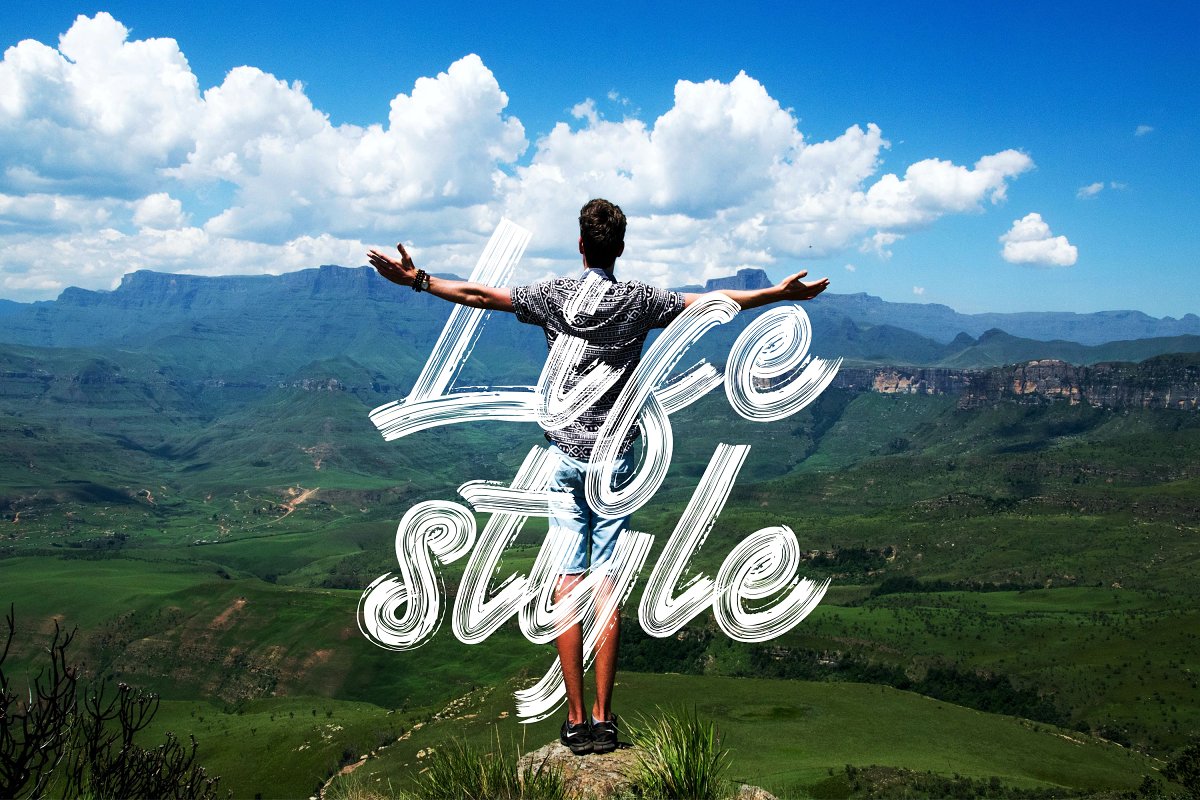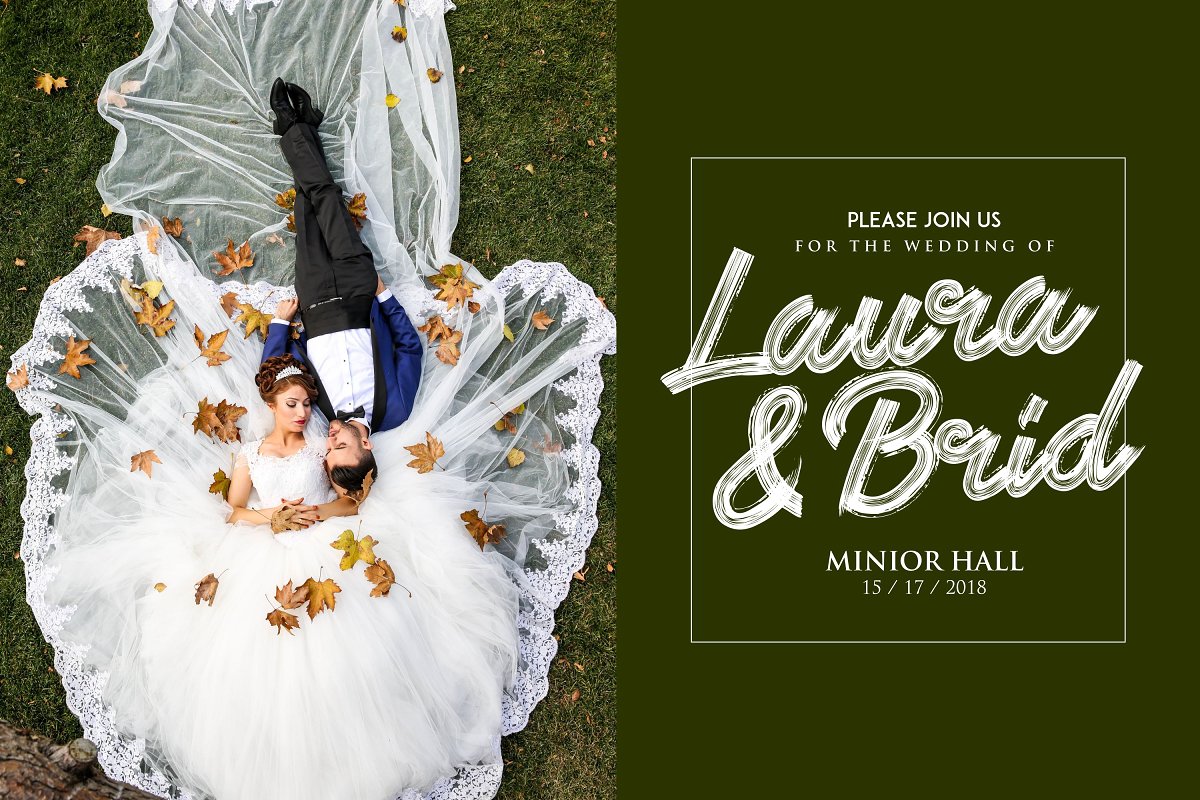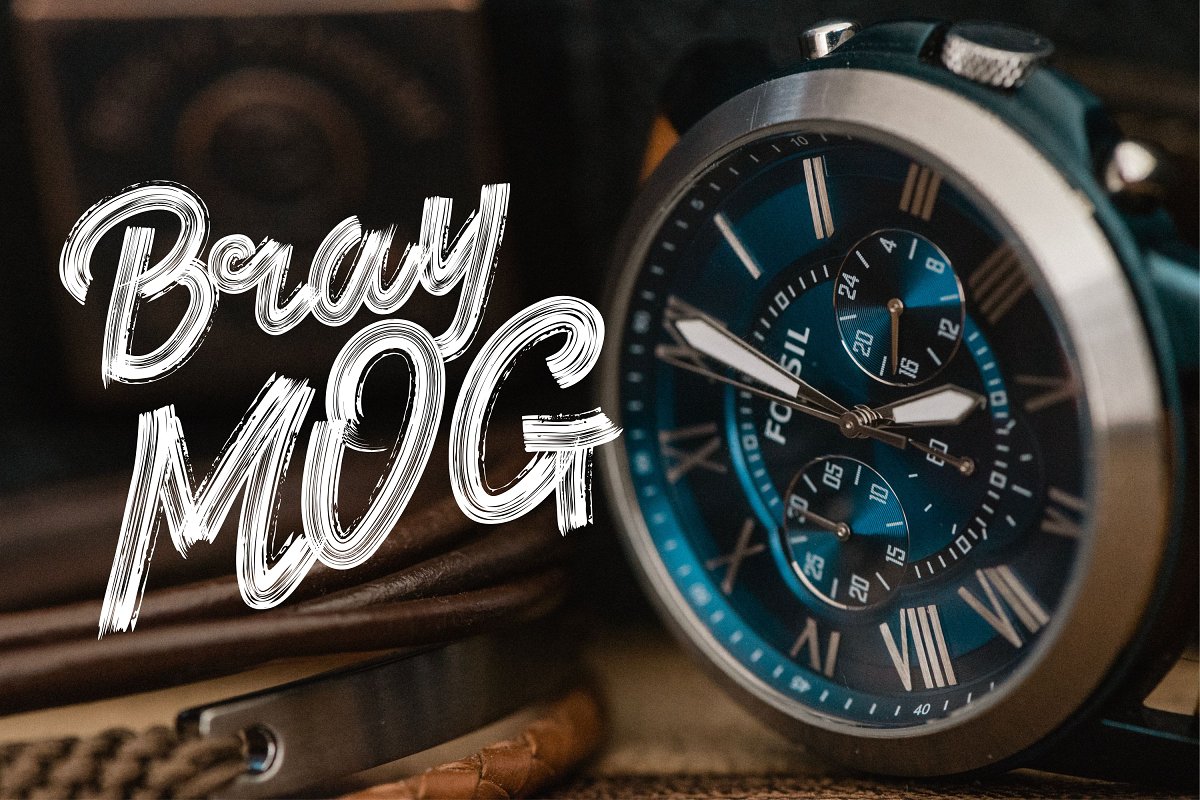
Paraf Brush Font
This is an unique textured brush font. It has an irregular baseline and can be used for every design which needs a striking typeface. Introducing Paraf Font. The Paraf is perfect for use in watercolor design or lettering style bold hand, such as blog header, branding, t-shirt, weddings, social media, product design, stationery, advertising, apparel, cover books, business cards, greeting cards, branding, merchandise, invitations and handmade quotes and more.